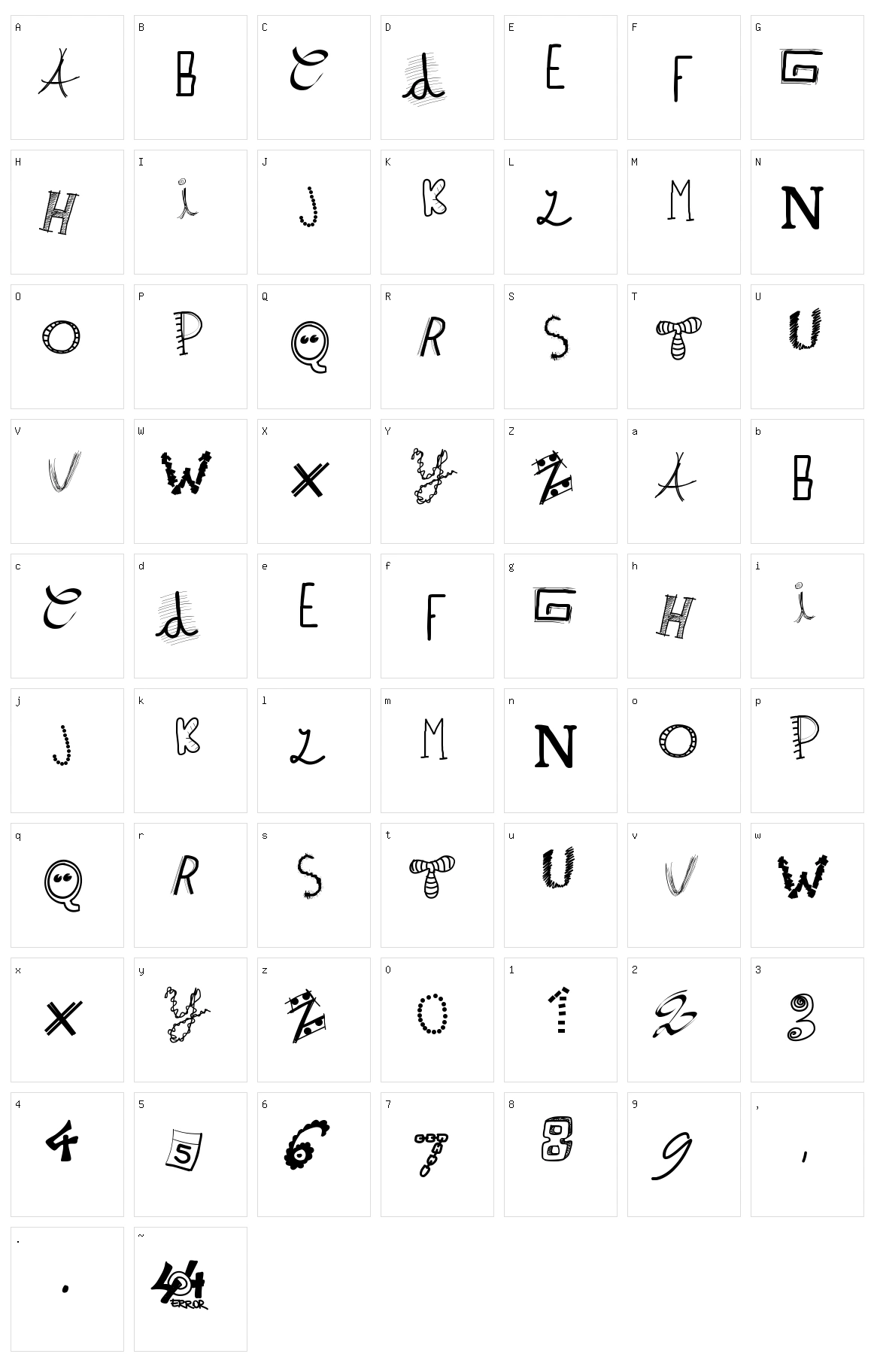
The free font PW Patchwrks is carefully designed by Peax Webdesign, showcasing a thoughtful balance of creativity and usability and falls under the Decorative font style. When you download the ZIP file, it contains only 25.88 KB of font files, making it lightweight and quick to download. Please review the license details below to understand permitted usage and distribution rights. If license information is not available, we recommend using this font for personal projects only or contacting the author directly for commercial usage permissions.